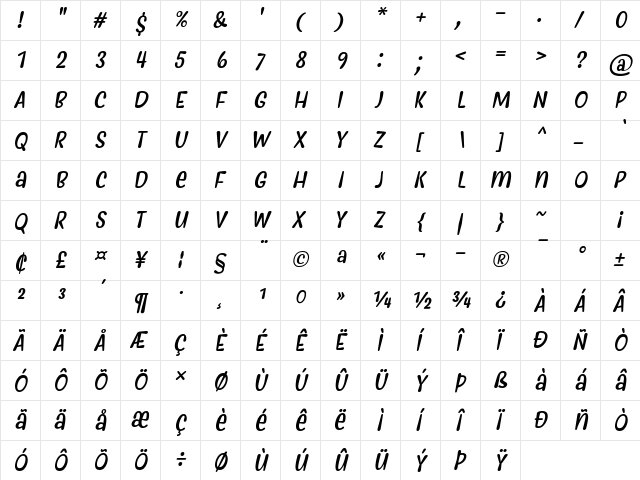
Myfrida Italic
| Foundry | 7NTypes |
| Designer | Situjuh Nazara |
Design Context for Myfrida Typeface
Myfrida is a composed and adaptable typeface that performs quietly and consistently across a wide range of design contexts. The slanted form adds forward momentum and visual energy.
Pro Tip: Use Myfrida for emphasis, pull quotes, and subheadings where its slanted energy can add rhythm to the layout.